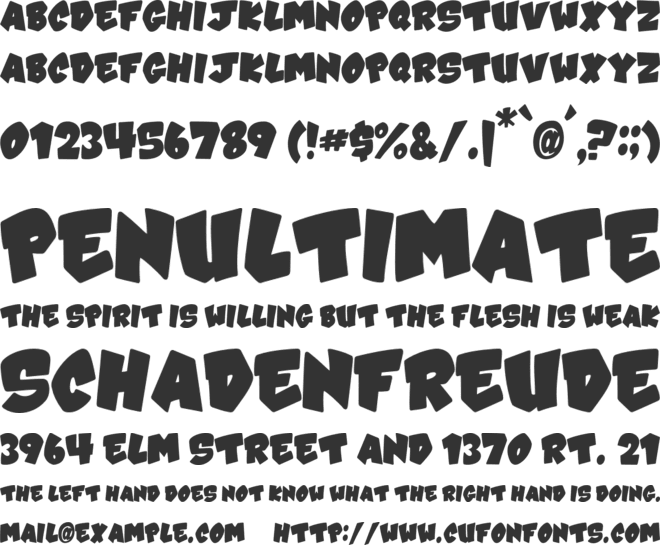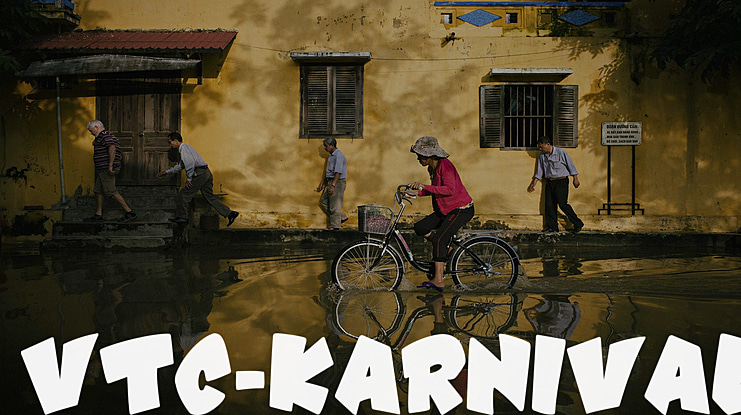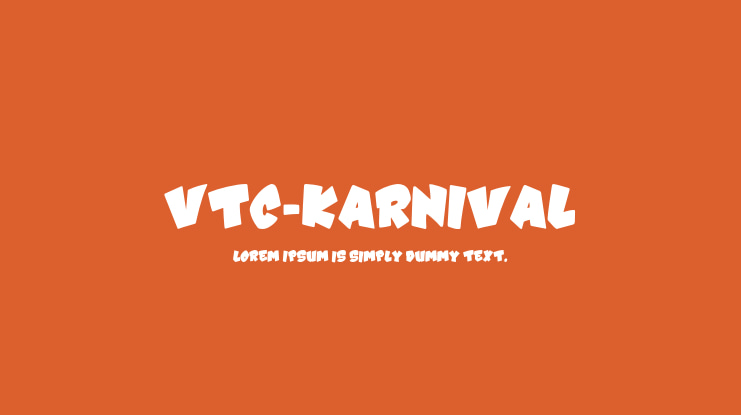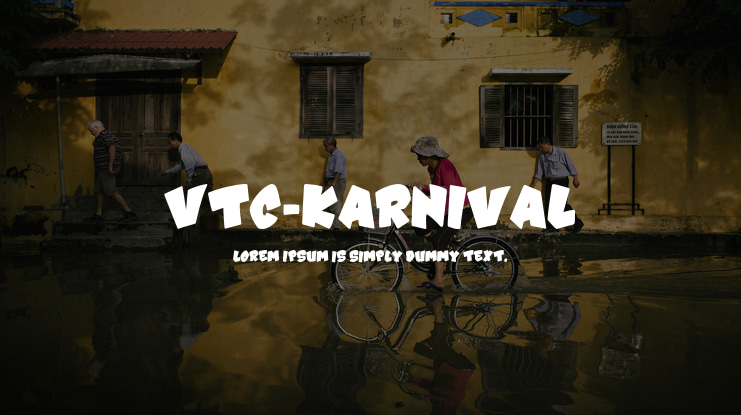
It was recently Fair/Carnival season here in Pennsylvania and me and my lady happened to be walking down one of the fairways and this Ice Cream stand was there with a giant sign on top of it done in a very cool lettering style, I snapped a picture of it because I thought one day maybe i'll draw it up on paper and make a complete font out of it. Well here it is ! I think this style lettering fits perfect for posters and signs of a whimsical nature, and I hope you do as well! Enjoy and best regards Larry E. Yerkes  - www.facebook.com/wolfbainx